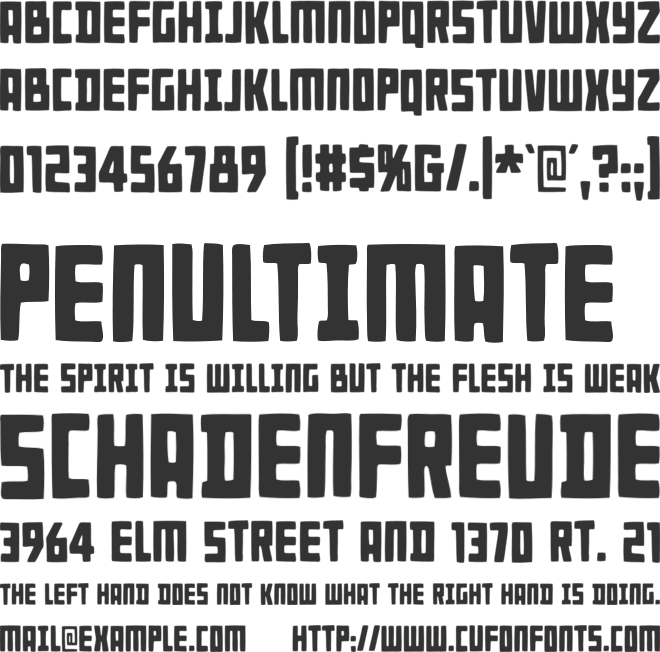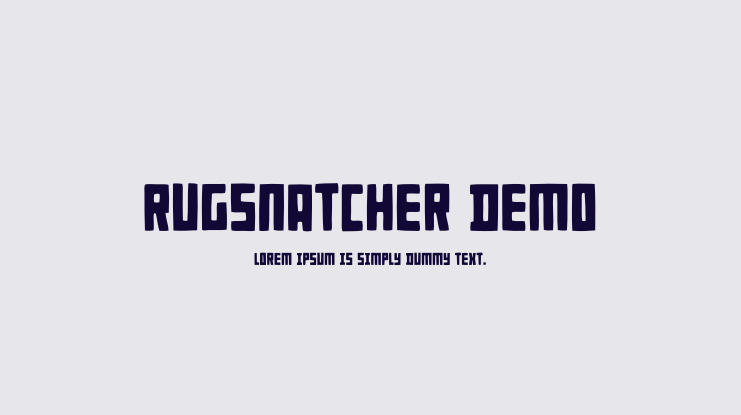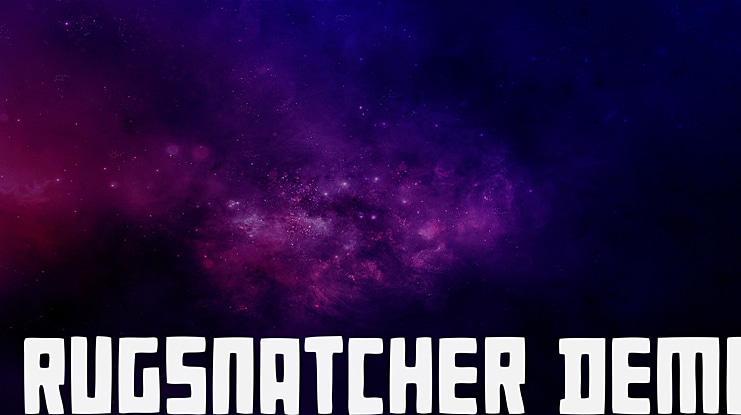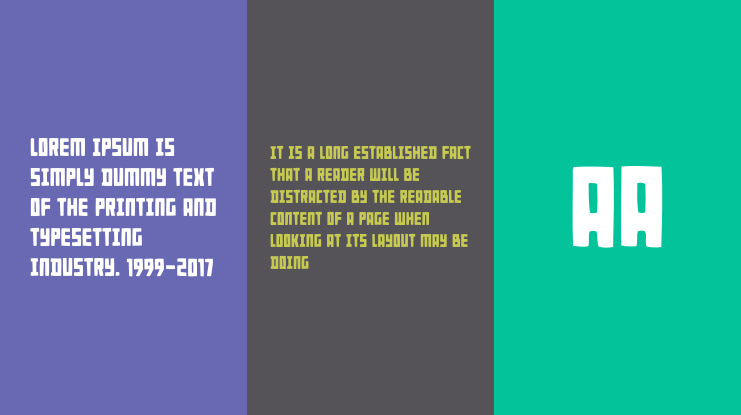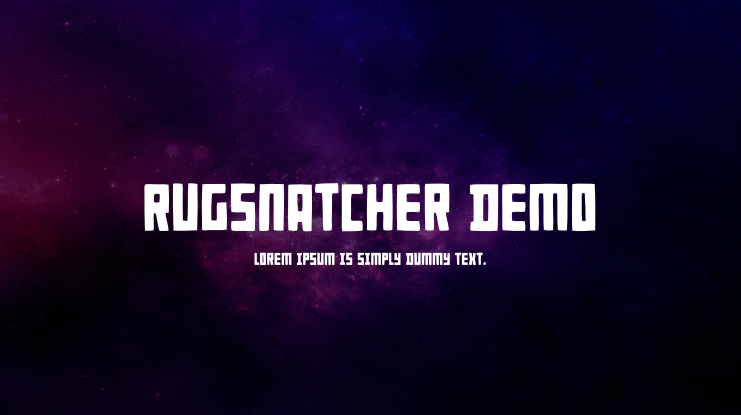
Rugsnatcher DEMO Font
Step into the future with this retro computer video game font!
Get that 80'ies feeling with shoot 'em up games and mazes full of deadly robots - just waiting to zap you with their lazers!
Rugsnatcher comes with a sci-fi loadful of ligatures, that curl and swirl ... right into outer space! Play around with UPPERCASE and lowercase to change how the letters play!